Margaret
Abyme · Thomas Grünfeld
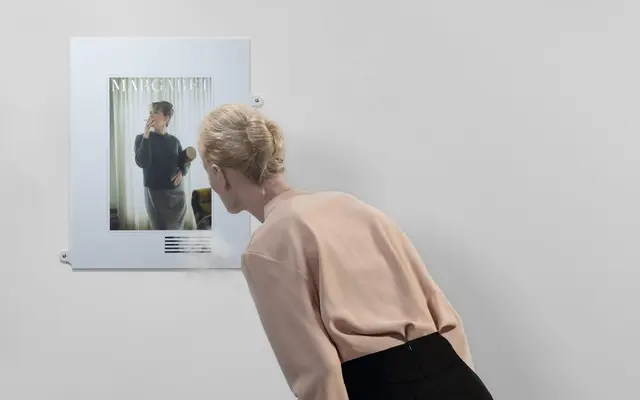
A limited-edition anodized aluminium intercom panel referencing Margaret Lanterman, the Log Lady from David Lynch's Twin Peaks, combining milled, printed and engraved lettering with a photographic portrait.
Produced in an edition of 16 plus four artist's proofs, this 540 × 480 mm anodized aluminium panel adapts the aesthetic of metal intercom systems with a photograph by Thomas Grünfeld, originally made for an exhibition of fireplace sculptures. The engraved name and title refer to Twin Peaks' Log Lady, whose log functions as a medium of communication, mirroring the intercom form. It sits between functional object and art multiple, oscillating between the familiar and the uncanny.
Margaret is an art edition rather than a typeface; it is an anodized aluminium panel with milled, printed and engraved lettering, placing it firmly in the display/decorative category as an object-based typographic work.